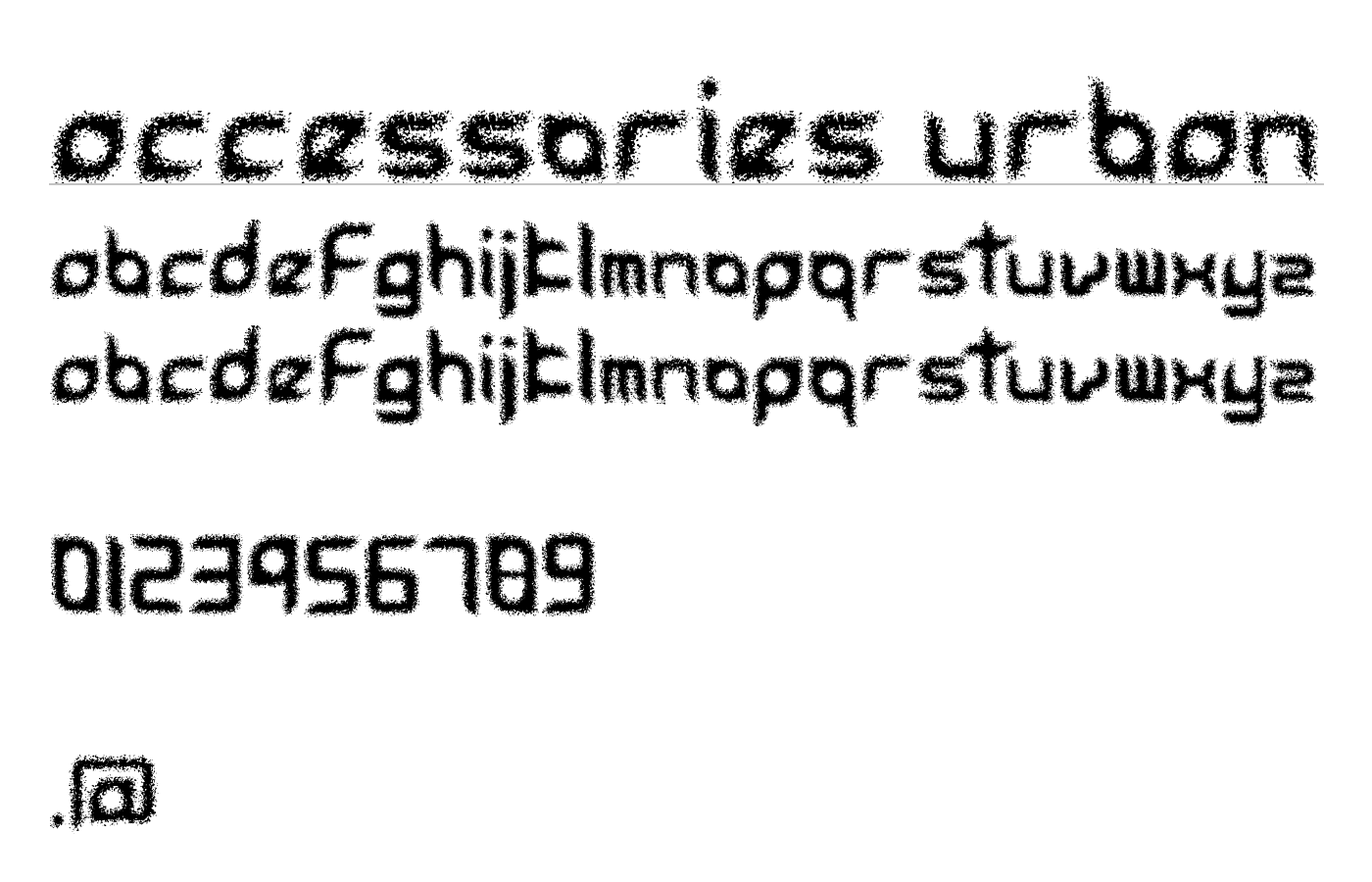
Accessories Urban is a distinctive sans-serif font with a textured, grainy effect that gives it an urban, edgy vibe. Its narrow, regular width and consistent stroke weight, combined with unique letterforms like the sharp, almost stencil-like edges and casual lowercase style, make it ideal for creative, street-inspired designs. This font works well for eye-catching headlines, logos, or posters where a modern, gritty personality is desired.